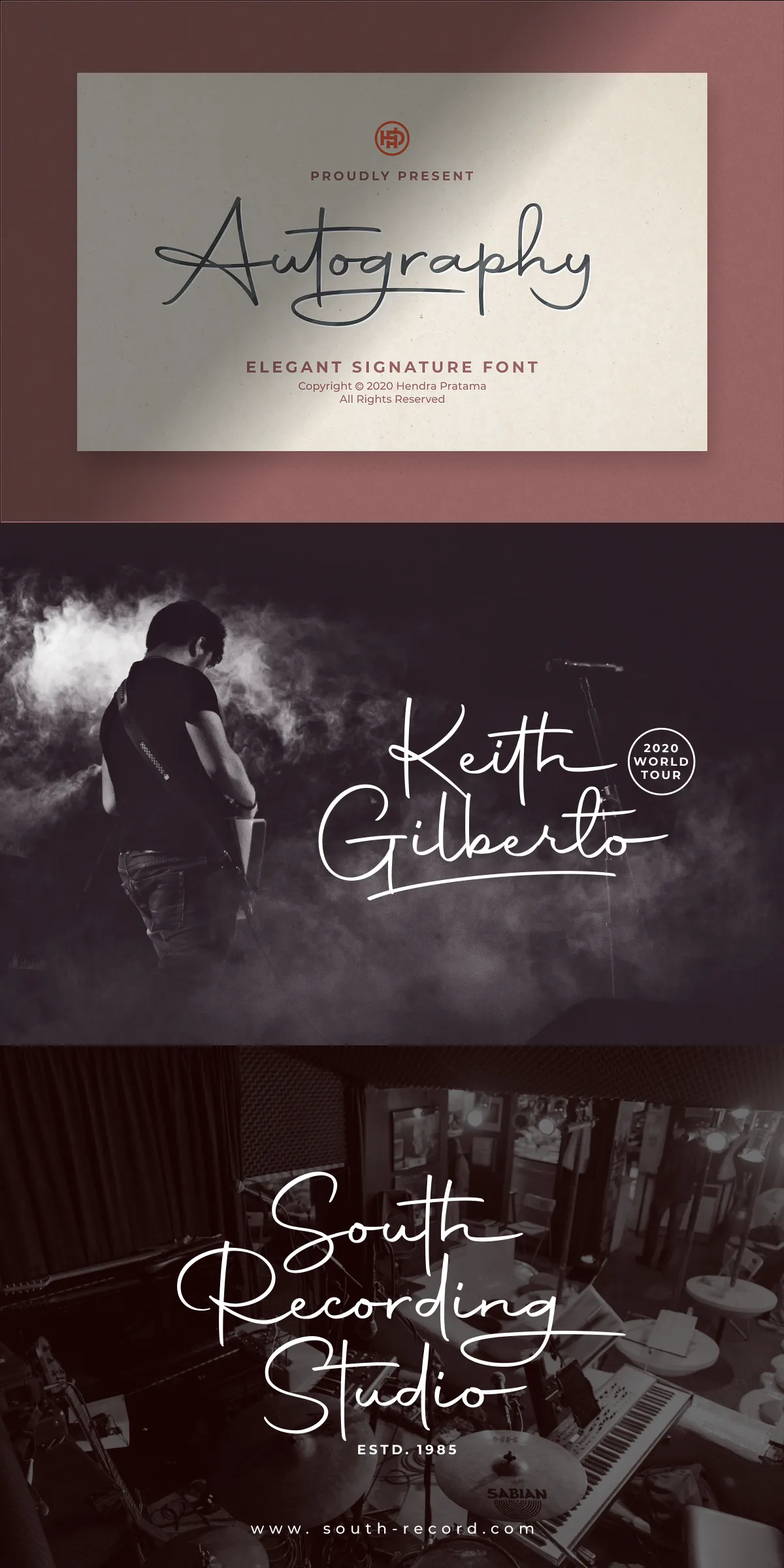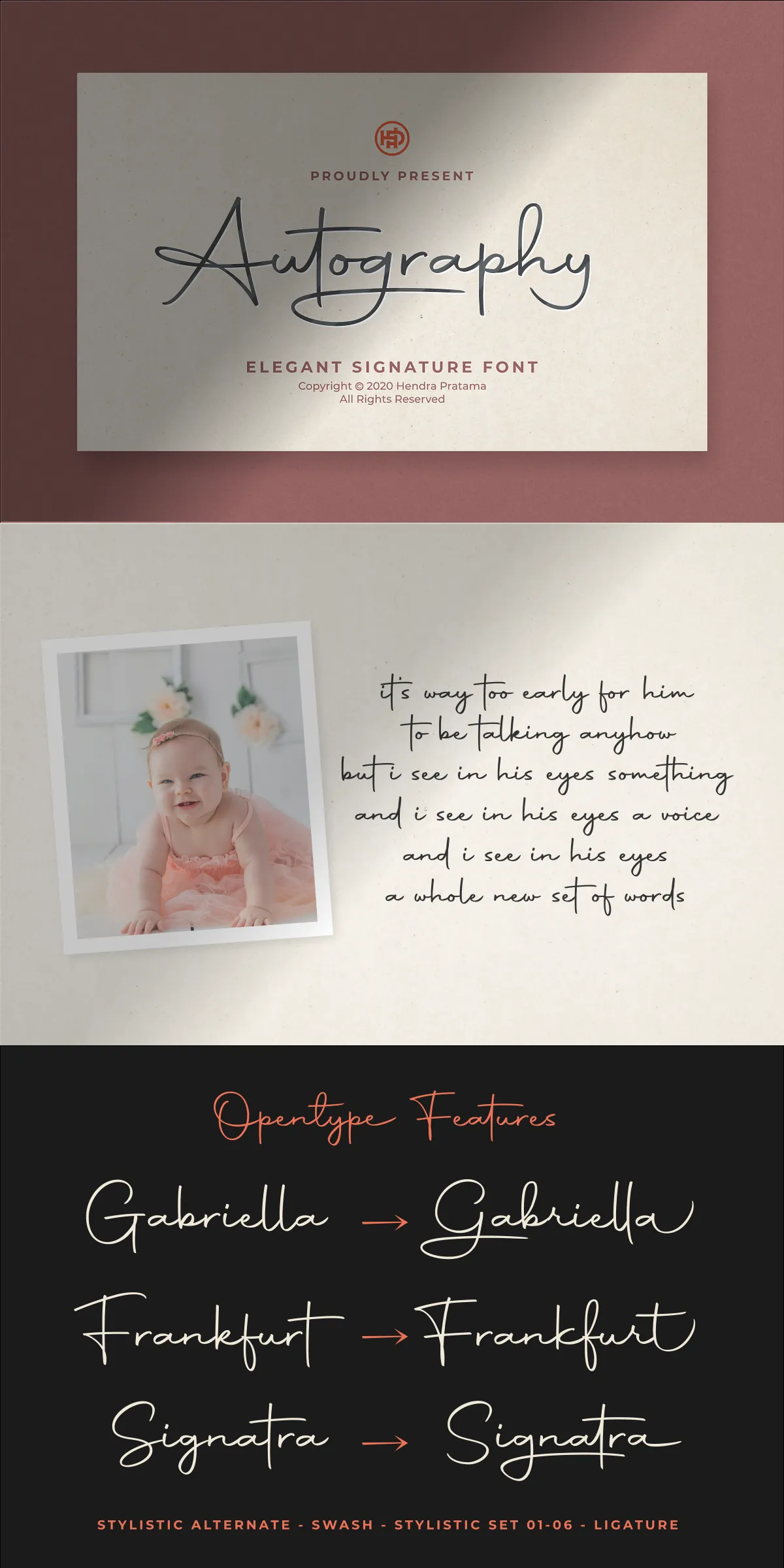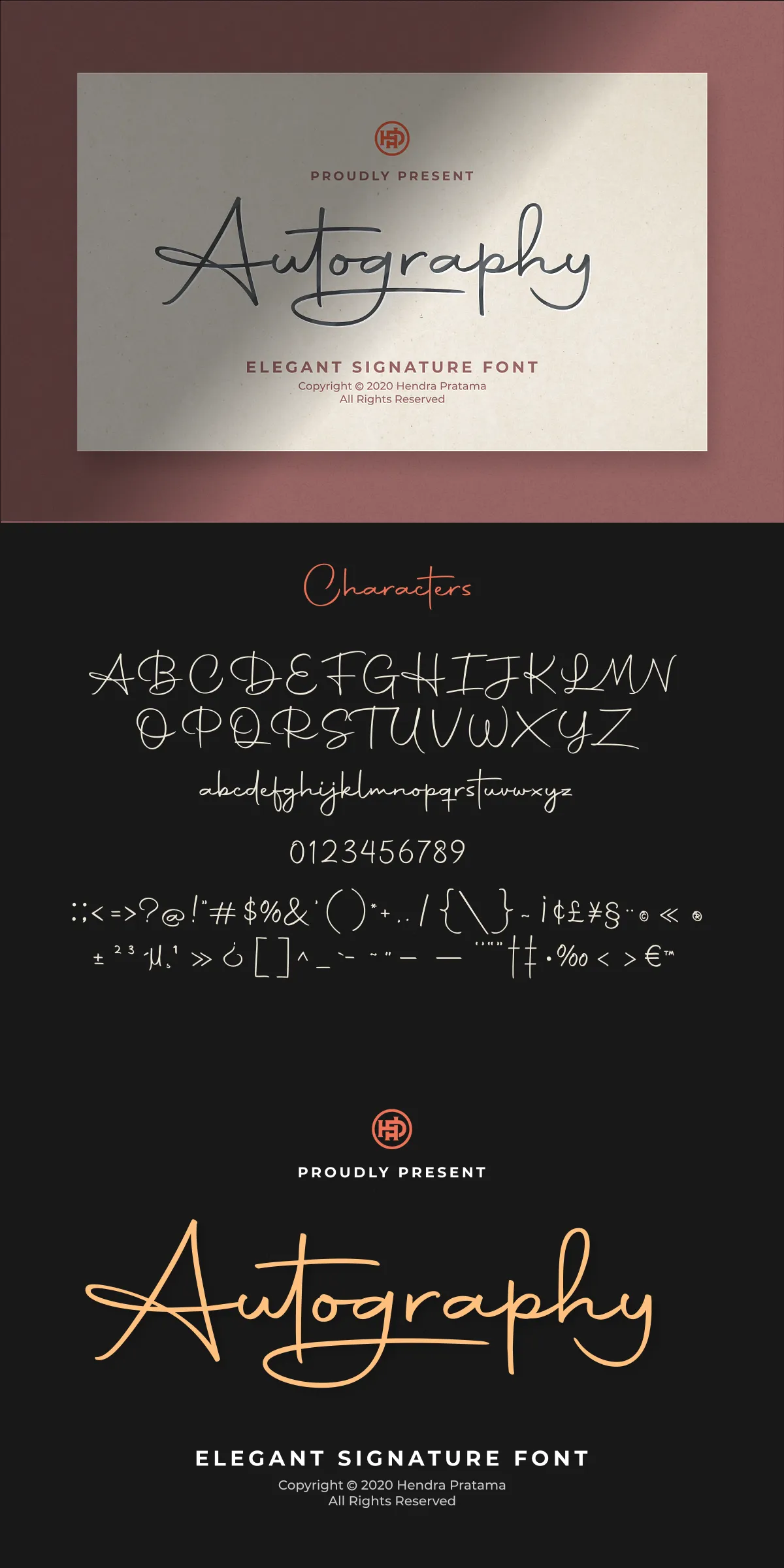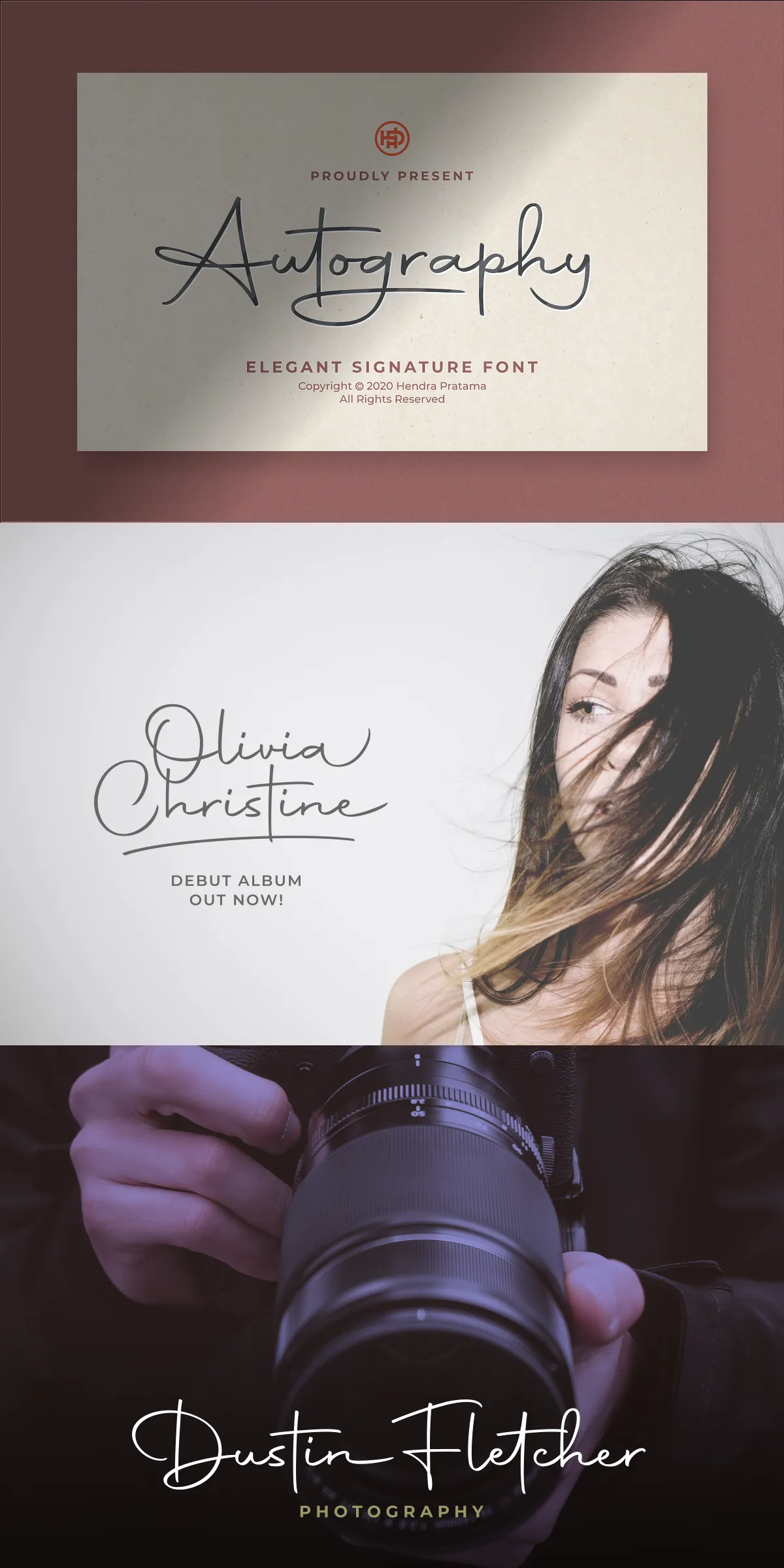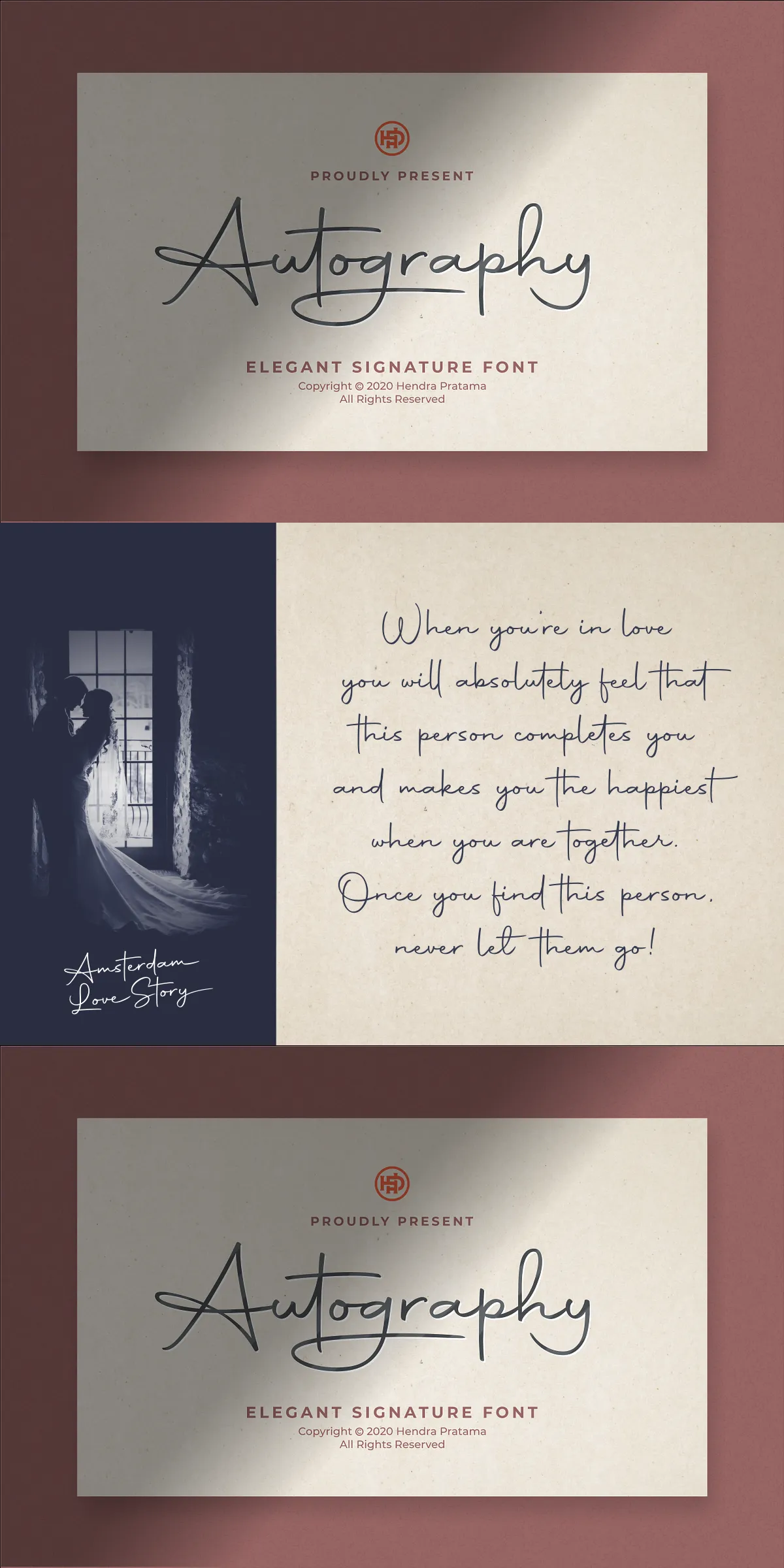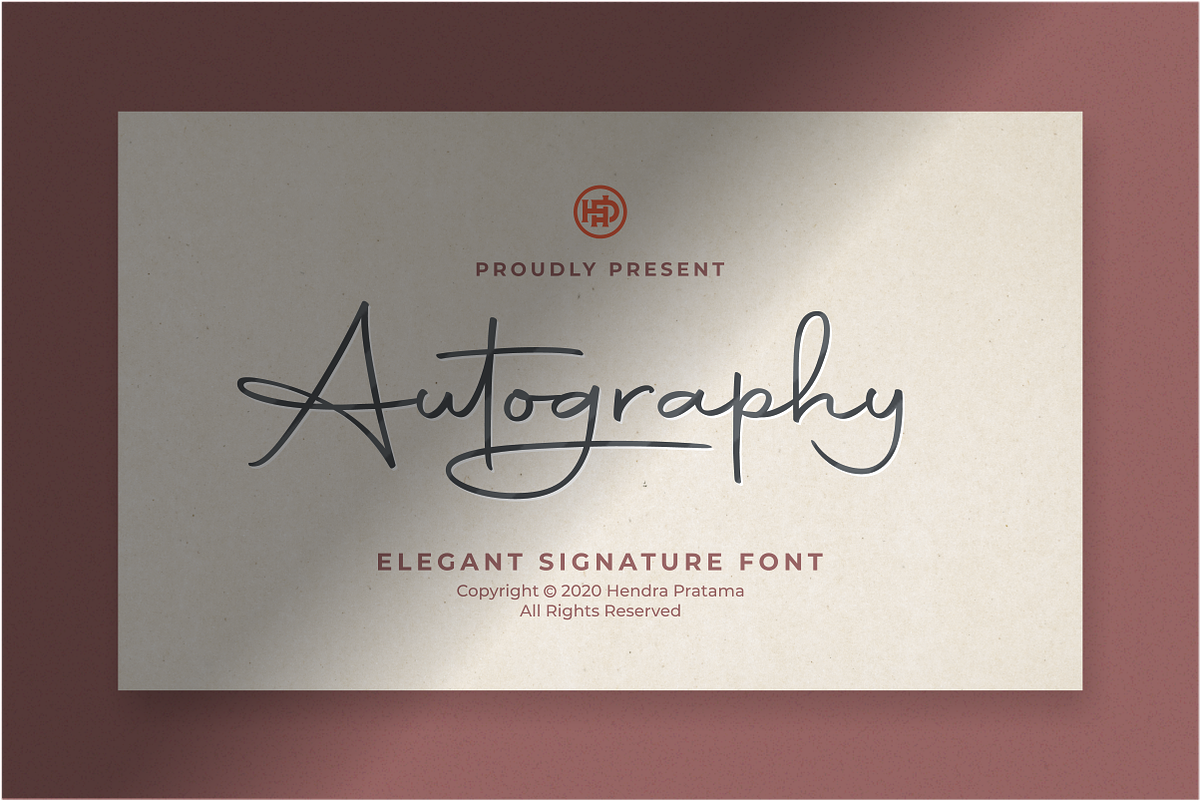
Autography – Signature Font
Elevate your design with Autography, a sophisticated calligraphic font engineered for bold yet graceful expression. Crafted with smooth, flowing lines and an upright, professional structure, Autography delivers the refined elegance of a handwritten signature—perfect for creating memorable logos, dynamic digital signatures, and high-impact branding across industries. Whether you’re designing a personal namecard, a luxury cosmetics poster, a fashion magazine spread, a compelling book cover, or a cinematic movie title, this font positions your message with confidence and class.
Why Autography Is a Designer’s Game-Changer for Modern Creative Projects
When precision, personality, and professionalism must coexist, Autography becomes your go-to solution. Its clean, upright stroke direction ensures readability at any size—from small business cards to large-format posters. The font’s naturally balanced proportions make it ideal for both print and digital applications, delivering flawless performance across websites, social media graphics, branding kits, and advertising campaigns. With its inherently elegant character, Autography instantly conveys trust, sophistication, and individuality, helping brands stand out in competitive markets.
Advanced Typographic Features That Power Dynamic Design Workflows
• Stylistic Alternates – Access a curated set of alternate glyph forms to vary the look of your text, ensuring unique and personalized results across every project.
• Stylistic Sets 01–06 – Activate specialized sets for different moods and contexts—from formal corporate signatures to artistic, expressive statements. These sets expand your creative range with minimal effort.
• Contextual Alternates – Automatically adjust letterforms based on surrounding characters, improving flow and ensuring a natural, handcrafted appearance without manual intervention.
• Swashes – Embrace ornamental flourishes at the start or end of characters, adding a touch of grandeur to headlines, logos, and quote design. These swashes are fully integrated and responsive across platforms.
• Ligatures – Enjoy seamless letter connections that prevent awkward spacing and improve visual harmony—especially useful in long text blocks or brand names with repeated letter pairs.
• Extensive Language Support – Compatible with over 40 Basic Latin languages, making Autography ideal for international brands, multilingual publications, and global marketing campaigns.
Perfect Applications Across Industries and Media Formats
Autography isn’t just a font—it’s a versatile identity tool. Use it to transform your creative vision across diverse applications:
• Logos & Branding – Create instantly recognizable brand marks with a human touch that feels authentic and polished.
• Personal & Professional Namecards – Stand out with a signature-style name that conveys personality and prestige.
• Fashion & Cosmetics Design – Enhance packaging, posters, and lookbooks with a luxurious, editorial-style aesthetic.
• Book Covers & Editorial Layouts – Command attention with bold, distinctive titles that reflect the tone of literary and visual storytelling.
• Movies & Title Sequences – Add visual drama and emotional depth to opening credits or promotional assets.
• Quotes & Digital Content – Inject warmth and authenticity into Instagram posts, Pinterest graphics, and website headers.
With Autography, your type isn’t just text—it’s a statement. Whether you’re building a brand, signing a project, or crafting a visual narrative, this font gives your work the polish and presence it deserves. Its combination of elegant calligraphy, technical precision, and rich feature set makes it one of the most usable and expressive signature fonts on the market.